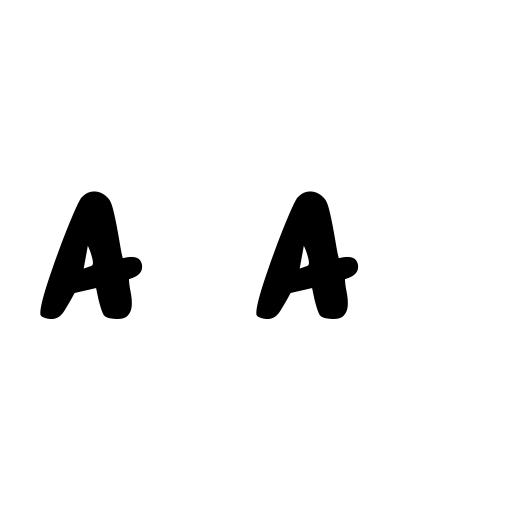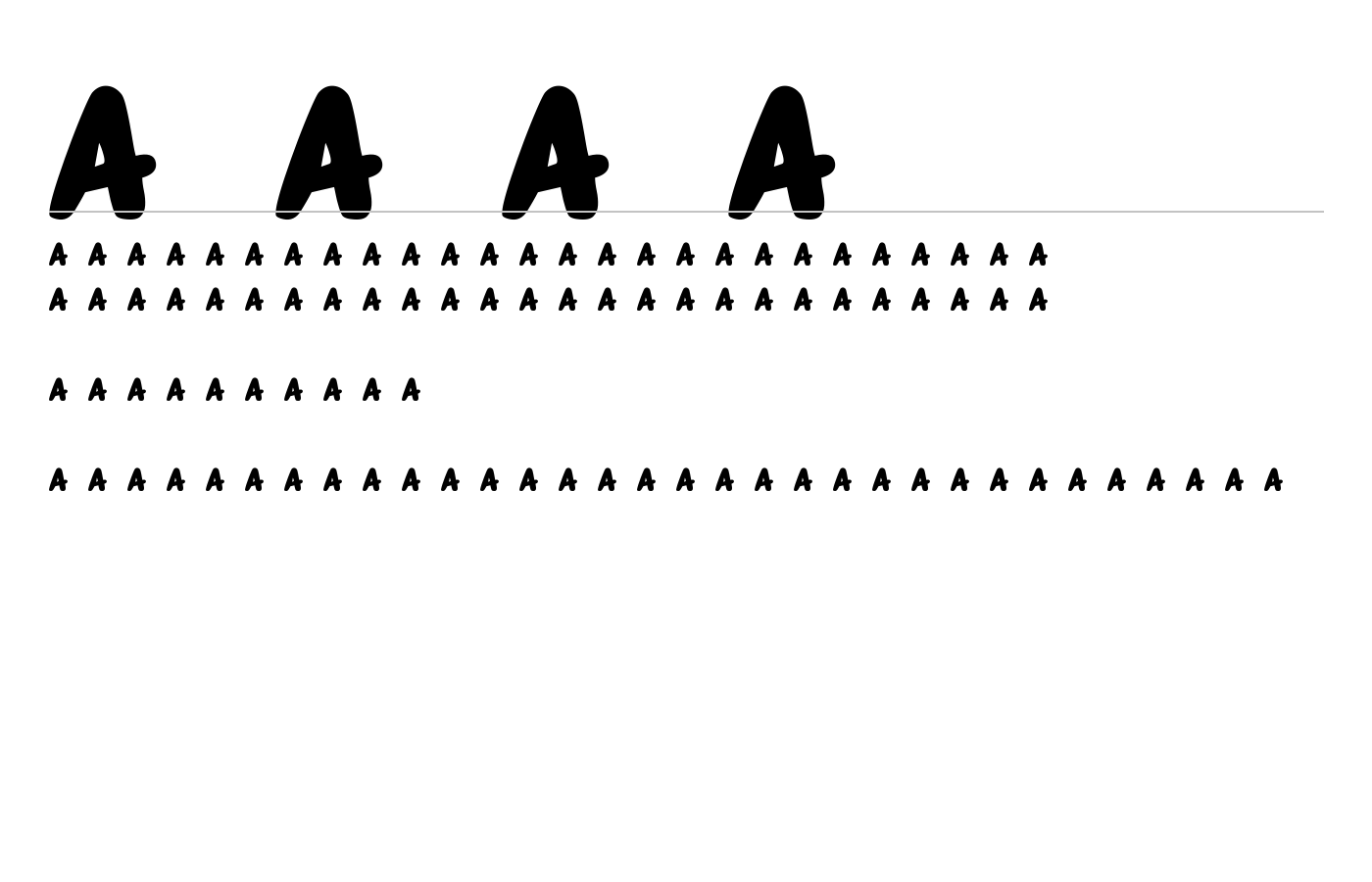
Aufy is a playful and bold handwritten font featuring rounded, thick strokes that give it a friendly and approachable character. Its casual letterforms with slightly irregular shapes make it ideal for fun, informal designs such as logos, children’s products, and creative posters. This font’s lively style works best in headlines and branding that seek a warm, energetic, and expressive vibe.
Aufy Font